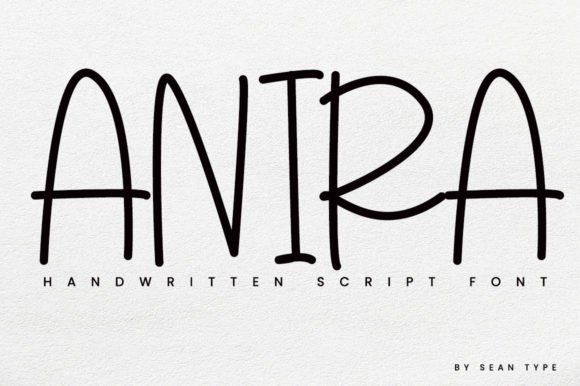
Introducing Anira Font, the epitome of sophistication and refinement in the world of script fonts. Created by the talented seantype, this exquisite handwritten font is specifically designed to add a touch of elegance to any project you have in mind.
With delicate curves and graceful flourishes, Anira Font is guaranteed to captivate and inspire. Its intricate details and artistic charm make it the perfect choice for wedding invitations, where it can beautifully complement the romantic ambiance of your special day. Imagine your guests being mesmerized by the intricate letterforms as they receive their elegant invitations.
But that's not all! Anira Font is also an excellent choice for creating stunning logos that leave a lasting impression. Its unique and eye-catching style will make your brand stand out from the crowd, conveying a sense of sophistication and class that will captivate your target audience.
Whether you're a professional designer or a DIY enthusiast, Anira Font is incredibly versatile and can be used in a wide range of high-end projects. Its PUA encoding allows you to effortlessly access all the exquisite glyphs and swashes, giving you endless creative possibilities. Let your imagination run wild as you explore the countless design options that this font offers.
When it comes to making a statement, Anira Font speaks volumes. Its timeless elegance and refined aesthetics will elevate your designs to a whole new level, leaving a lasting impression on anyone who lays eyes on them. It's the perfect choice for those looking to create a sense of luxury and exclusivity, making it ideal for fashion, beauty, and lifestyle projects.
In a world where first impressions matter, Anira Font sets the stage for success. Its emotional appeal and captivating charm make it an essential tool for anyone looking to create a memorable and visually stunning design. So why settle for ordinary when you can have extraordinary? Download Anira Font today and let your creativity shine with its timeless beauty.